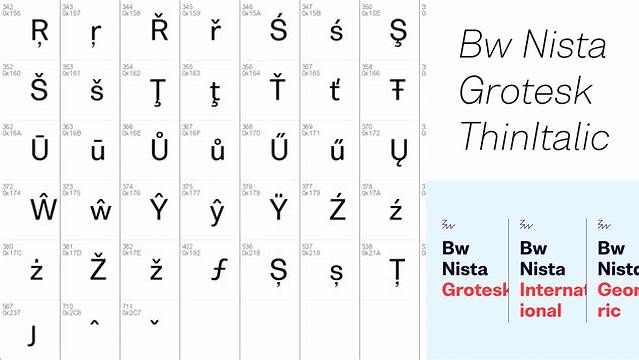
BW Nista Font Free Download: Everything You Need to Know
Hey there, design enthusiasts! Ever stumbled upon a font that just speaks to you? Well, chances are, you might have felt that spark when you encountered the BW Nista Font. It’s a real gem, guys. In this comprehensive guide, we're diving deep into the world of the BW Nista Font, specifically focusing on how you can snag a BW Nista Font free download. We'll cover everything from where to find it, how to use it, to some cool design ideas that will make your projects pop. If you're a designer, a student, or just someone who loves playing around with fonts, this is the place to be. Let's get started and unlock the beauty of BW Nista! So, buckle up, and let’s explore how you can get your hands on this awesome font without spending a dime! Ready to jazz up your design game? Let's go!
BW Nista Font: What Makes It Special?
So, what’s the buzz around BW Nista Font? Why is it so special, and why are people searching for a BW Nista Font free download? Simply put, it's the way the font looks and feels. It has a unique blend of elegance and modernity that sets it apart. Its design is clean, legible, and versatile, making it suitable for a wide range of applications. From headlines to body text, BW Nista handles it all with grace. When you start using this font, you'll notice it has a unique character that elevates any design project. Its distinct style adds a touch of sophistication without being overly fussy. This is why a BW Nista Font free download is so sought after. It’s a valuable asset for designers looking to create a professional and polished look. The font’s popularity isn't just hype; it's a testament to its quality and the way it enhances visual communication. Furthermore, the designers behind this font have clearly put in a lot of thought, ensuring that each character is perfectly balanced. This careful attention to detail is what makes BW Nista a standout choice for any designer's toolkit. Its balanced appearance and versatility make it ideal for all kinds of uses, giving you the flexibility to create eye-catching designs. If you are looking for a font that delivers both style and functionality, then this is it!